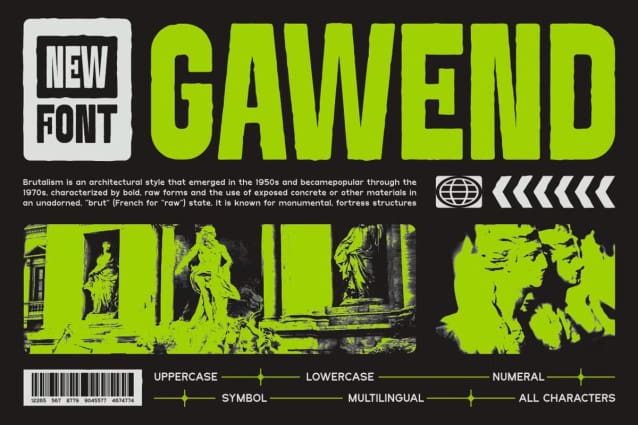
Gawend Font
Gawend Font – Classic Sans Serif Typeface is a bold and authentic display font. The font is suitable for any branding project like logo, Template Design, esport, and many more. outstanding in a wide range of contexts.